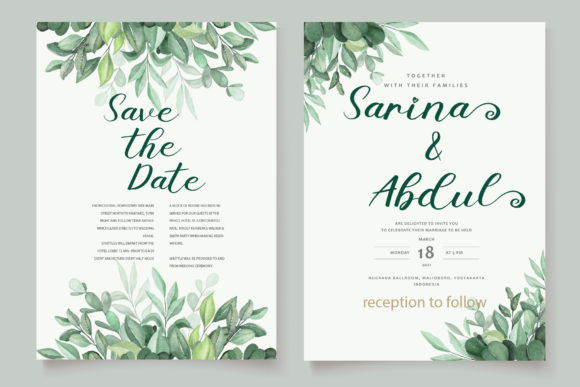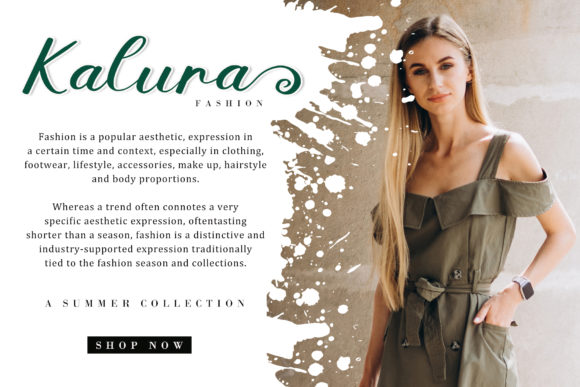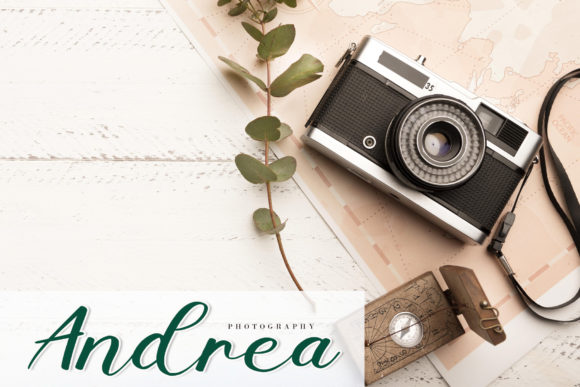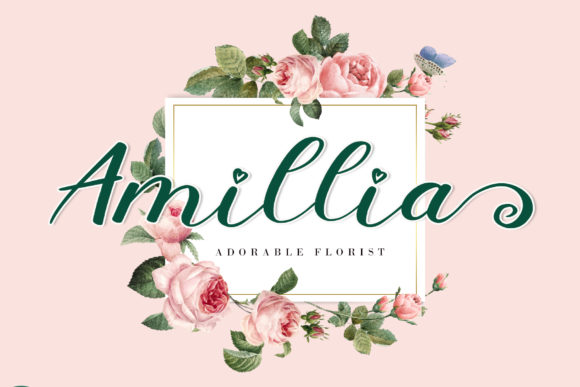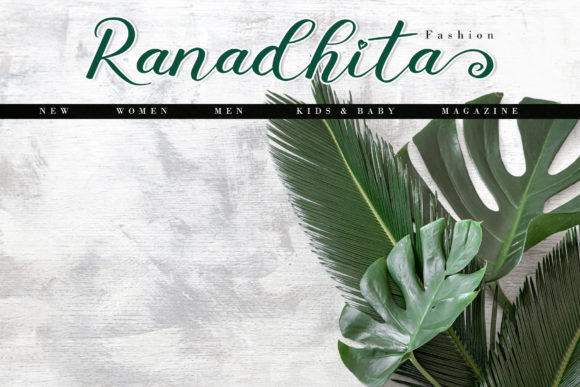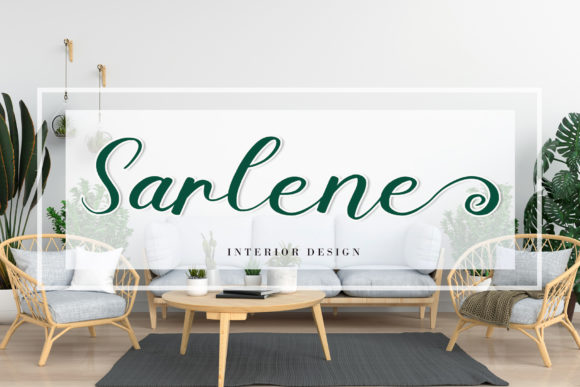
Introduction to Aurona Font
Aurona is a classic and natural handwritten font.
Fall in love with its authentic feel and use it to create gorgeous wedding invitations, beautiful stationary art, eye-catching social media posts, and cute greeting cards It is PUA encoded which means you can access all of the glyphs and swashes with ease.